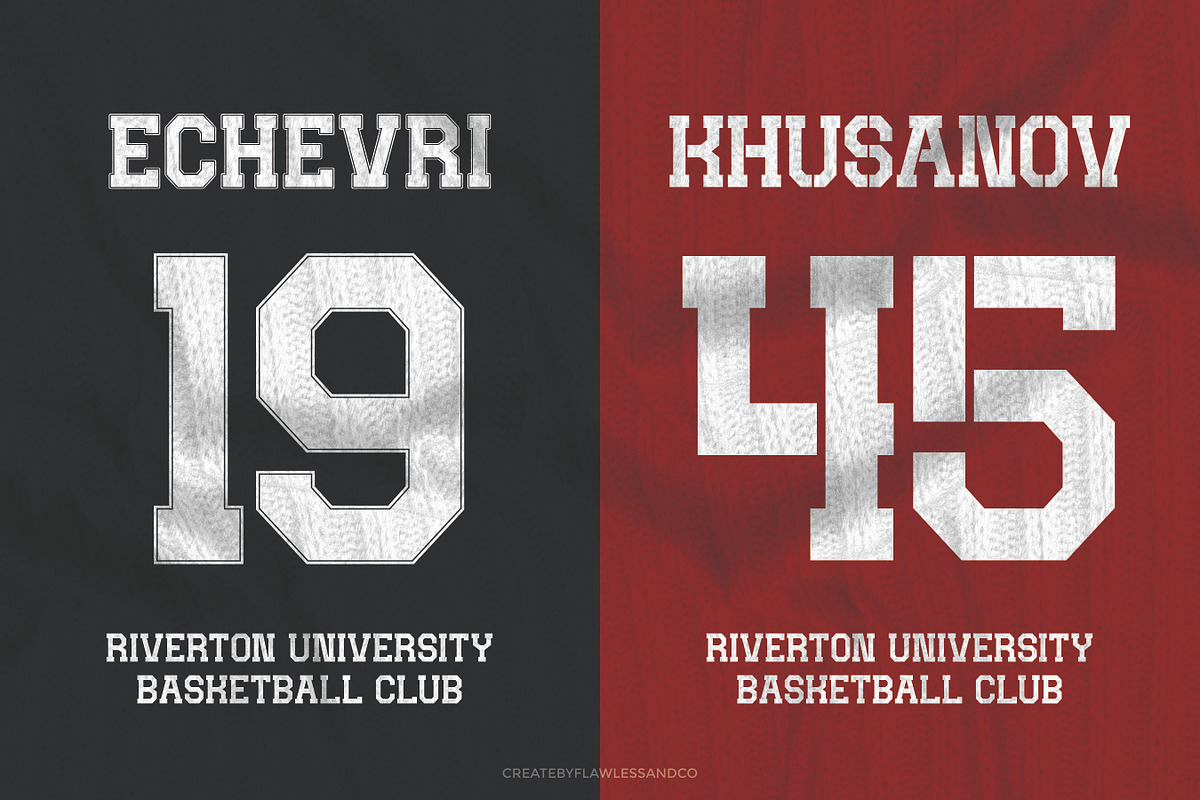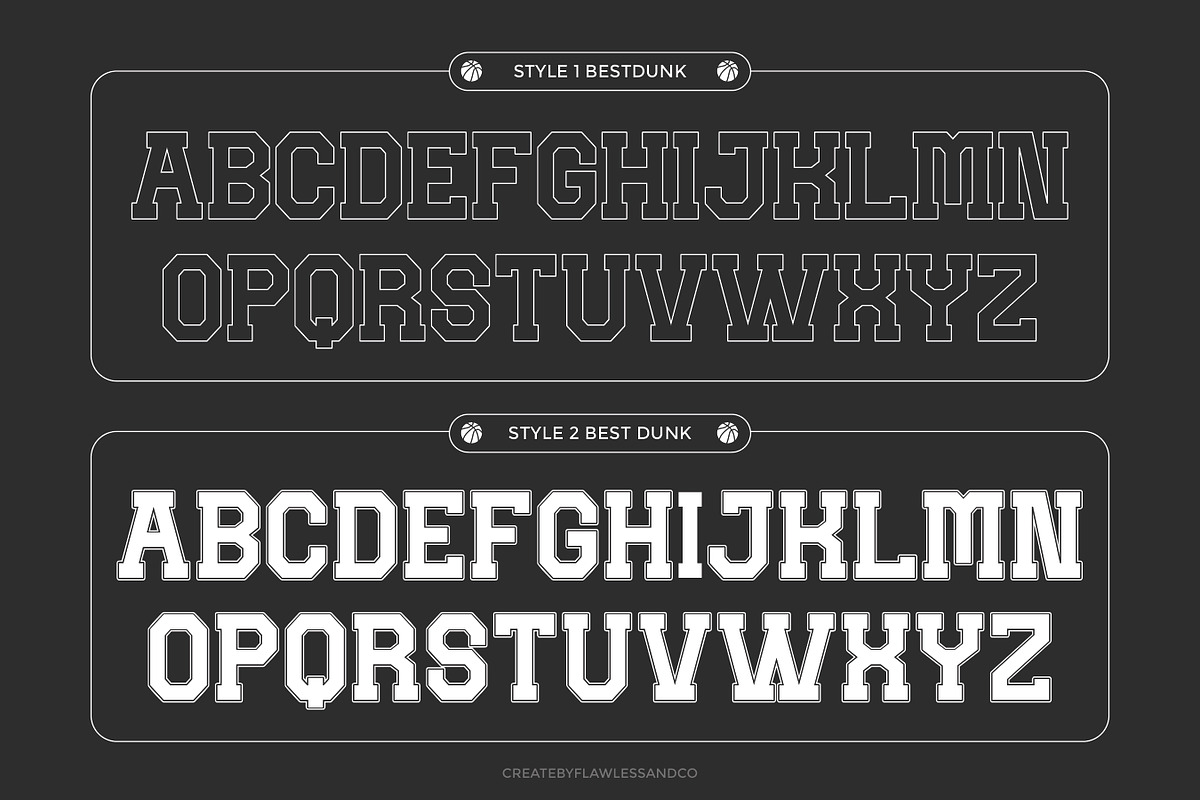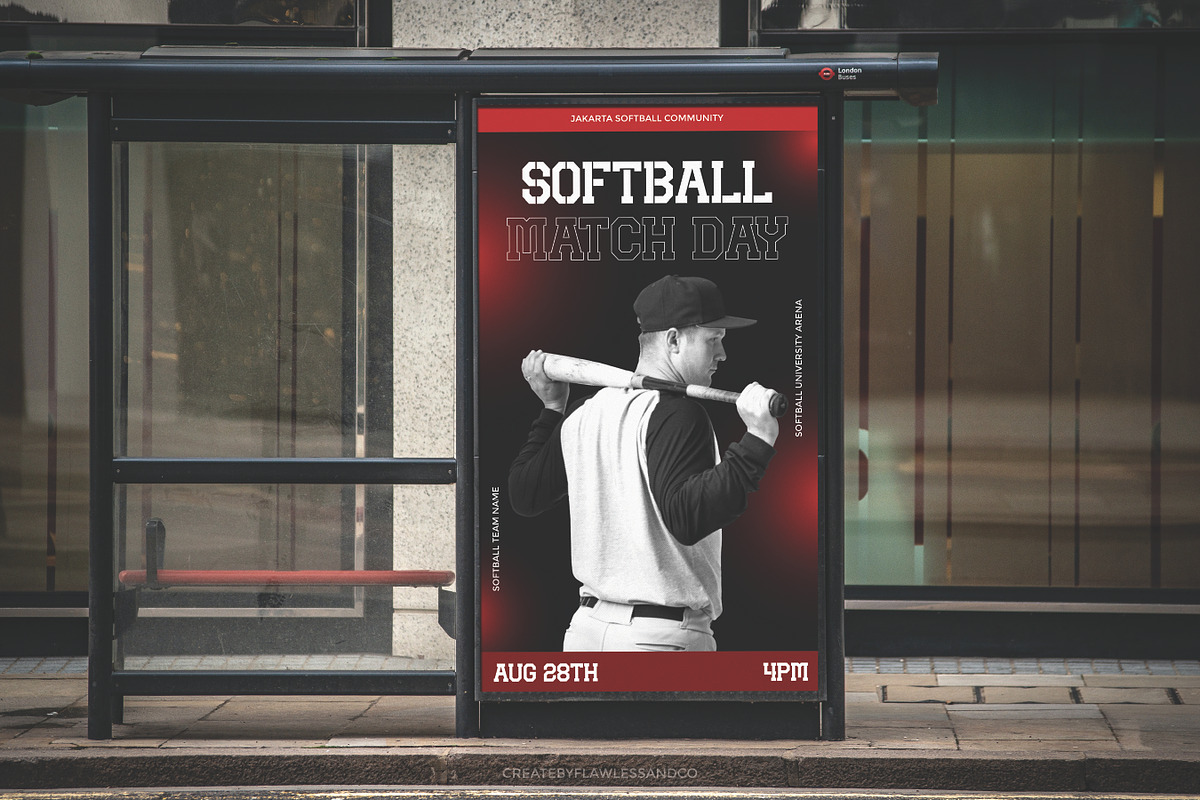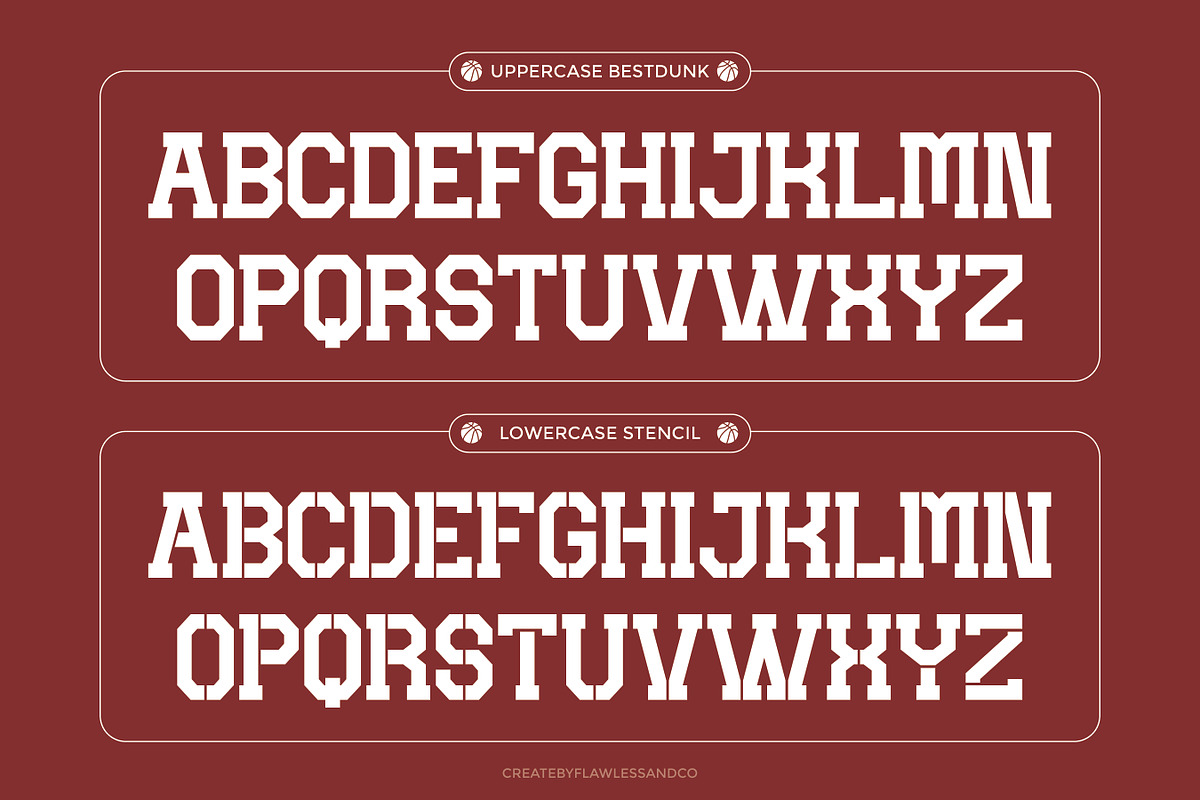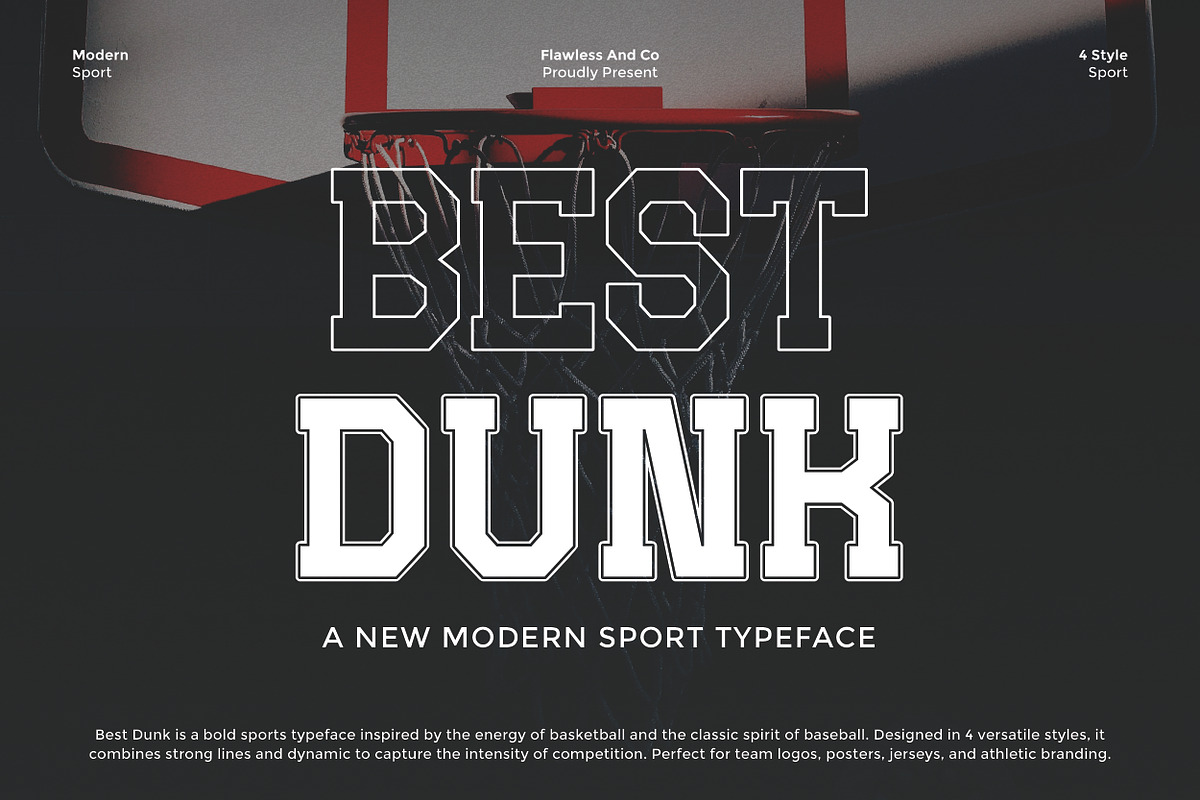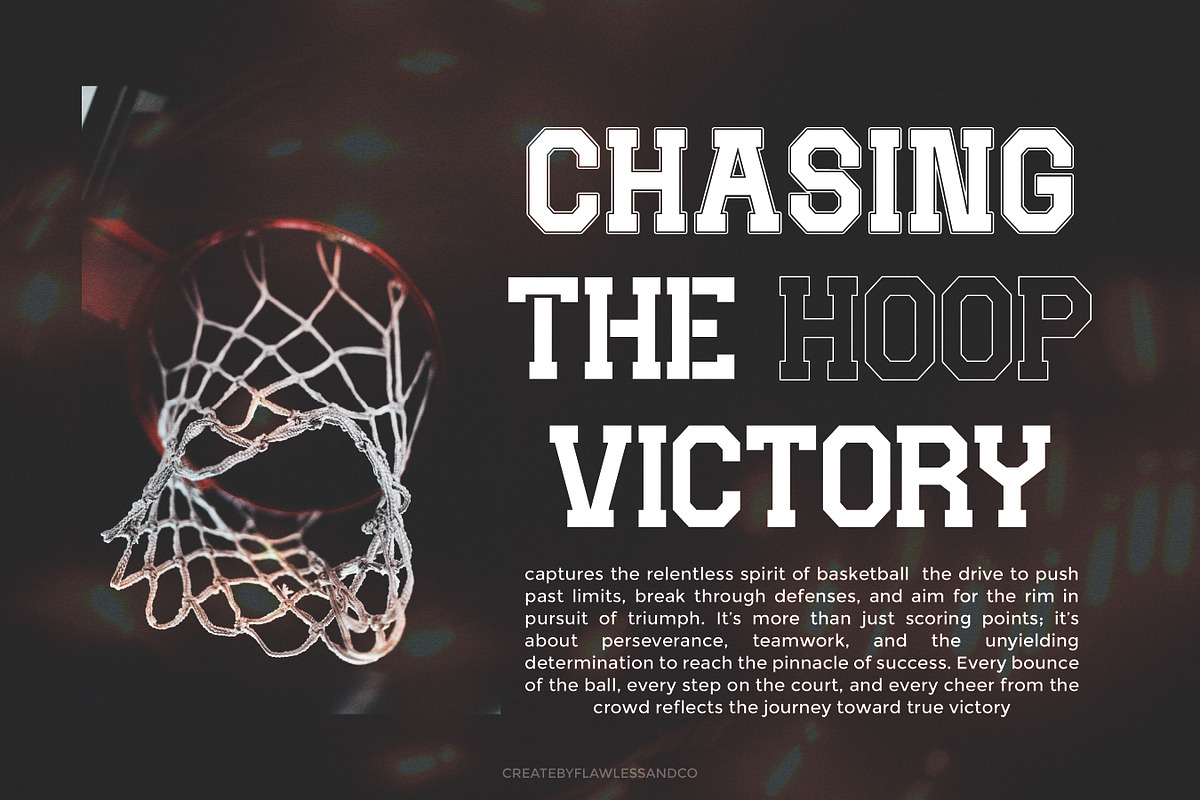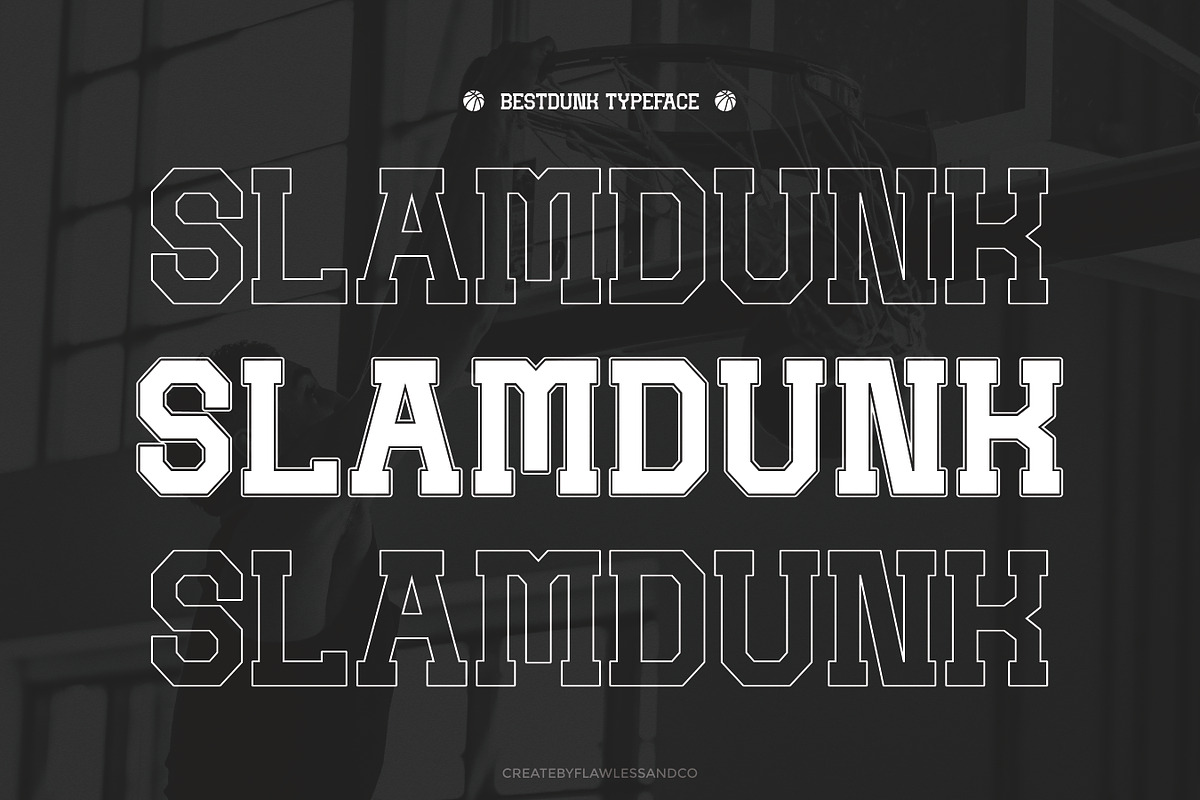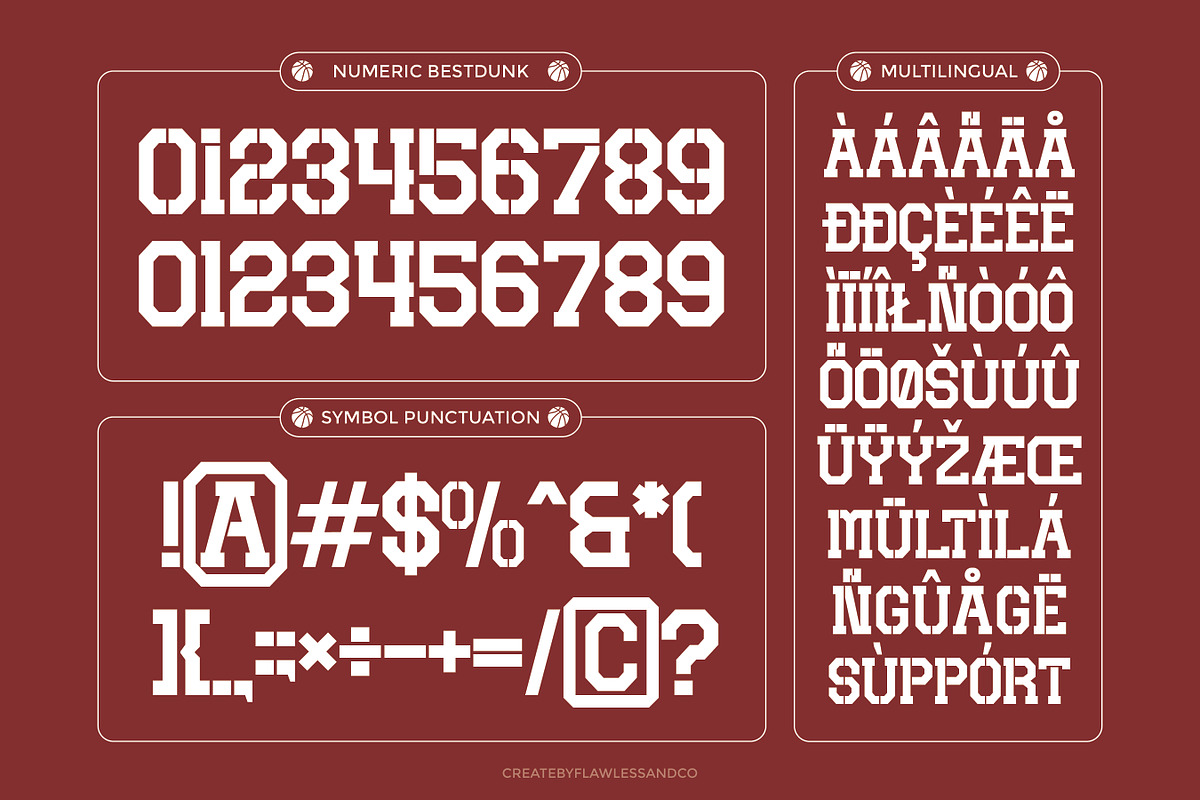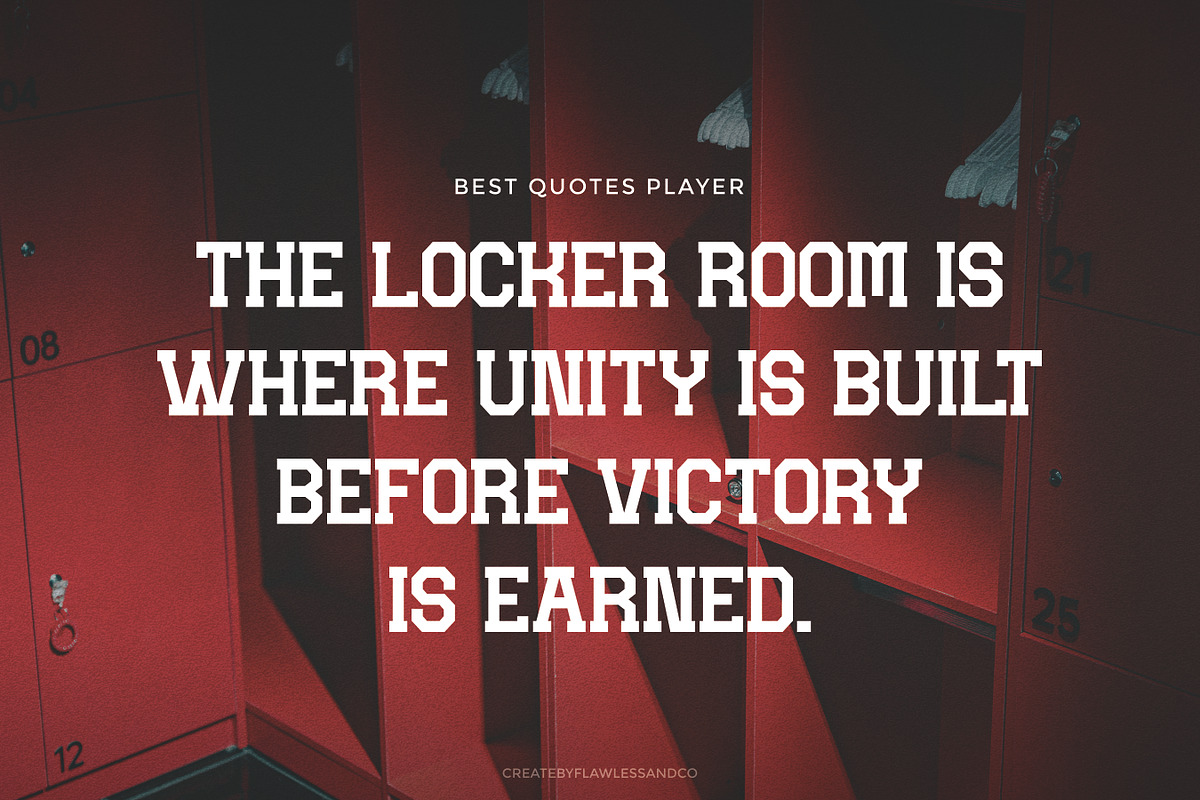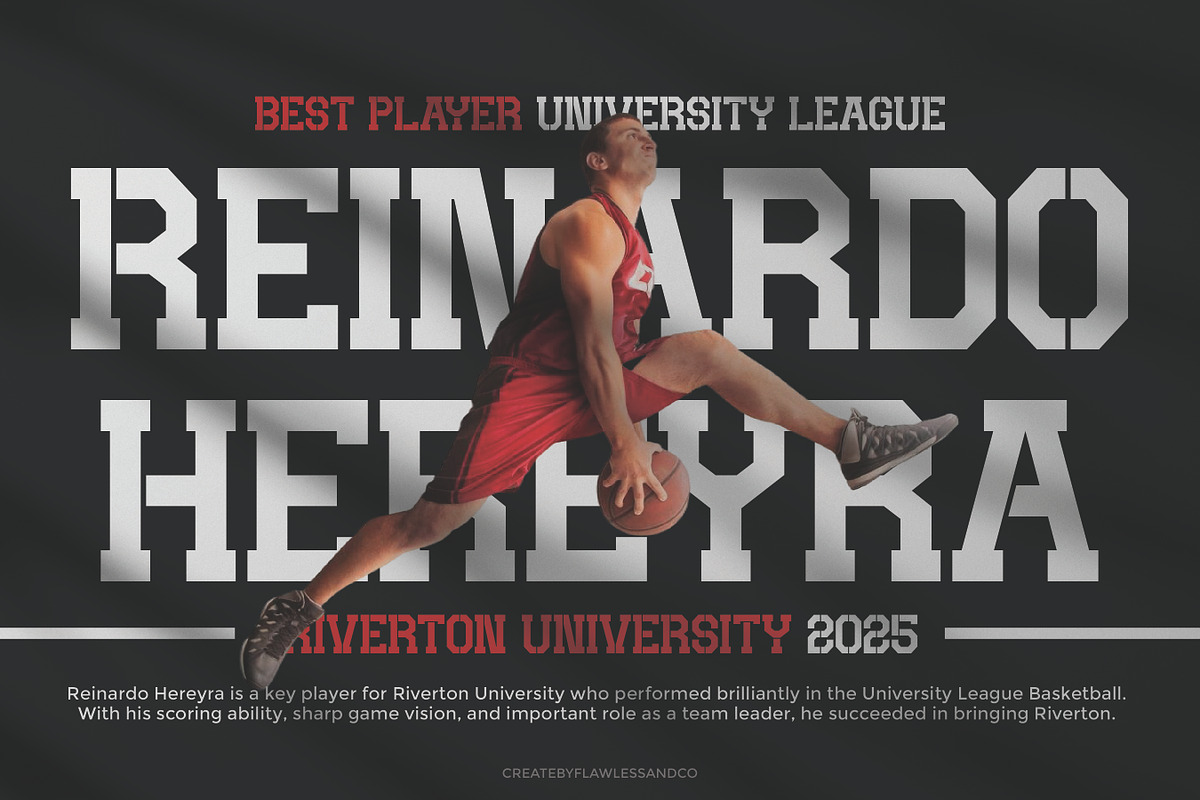
Best Dunk - Modern Sport Font
Best Dunk - Modern Sport Font Best Dunk is a bold branding logo font inspired by the dynamic energy of basketball and the timeless spirit of sports culture. With its strong lines, impactful structure, and versatile design, Best Dunk captures the intensity of competition and the excitement of victory. Perfectly crafted for team identities, athletic merchandise, and sports branding, this typeface is built to stand out both on and off the court. Features: - Uppercase & Lowercase - Alternates & Ligatures - Numerals & Punctuation - Multilingual Support Who Should Use Best Dunk? Best Dunk is perfect for designers, brands, and creatives who want bold, athletic-inspired typography that stands out with confidence. Whether you’re building a sports identity, designing for teams, or crafting high-impact branding, this font is made for you. It’s especially ideal for: - Sports teams & athletic organizations wanting a strong and professional look - Apparel and merchandise designers who need bold, eye-catching type - Creative agencies working on branding for lifestyle or active industries - Poster, flyer, and cover designers looking for impactful headlines - Social media creators who want energetic and modern sports visuals A Must-Have Font for "Brand and Logo" Creators and Designers Best Dunk is an essential typeface for anyone looking to craft bold and unforgettable brand identities. With its strong, athletic-inspired design, this font gives logos, wordmarks, and brand visuals a dynamic edge that instantly commands attention. Perfect for creating standout sports branding or modern lifestyle logos, Best Dunk ensures your designs are powerful, versatile, and built to last. Why Choose Best Dunk for "Brand and Logo" Projects? Best Dunk is more than just a font — it’s a design powerhouse that brings strength, energy, and boldness to your brand visuals. Its sporty yet modern style makes it perfect for building logos that stand out, whether for athletic teams, streetwear brands, or lifestyle businesses. With its clean lines and impactful presence, Best Dunk helps you deliver a professional identity that’s not only memorable but also highly versatile across digital and print applications. Suitable For: - Brand identities and bold logo design - Sports team branding and merchandise - Streetwear and lifestyle product packaging - Dynamic poster and headline design - Social media graphics and marketing campaigns - Creative projects needing a strong, energetic typeface If you need help, just write me! Thanks so much for checking out my shop!